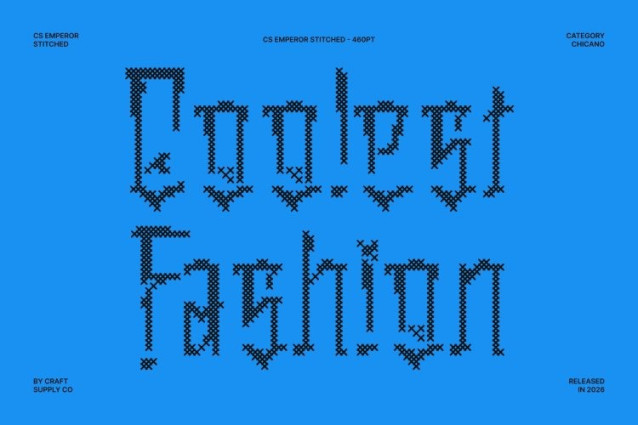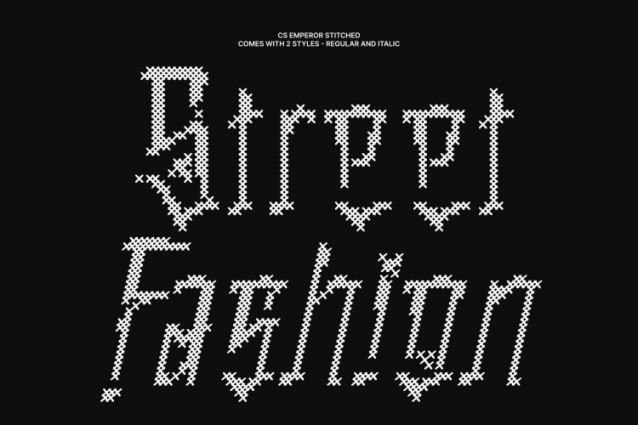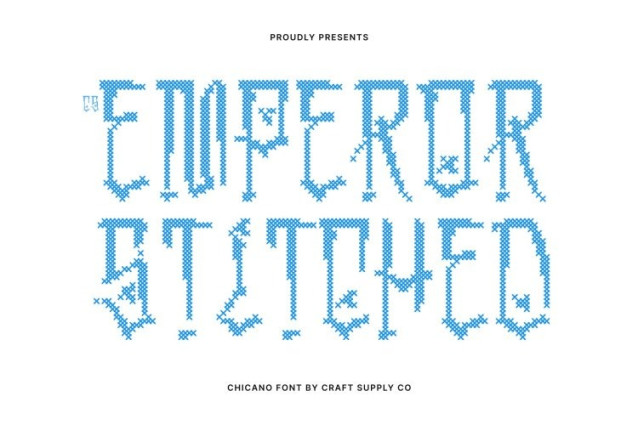
CS Emperor Stitched Font
CS Emperor Stitched Font – This is a bold display font inspired by the expressive beauty of Chicano graffiti, enhanced with a stitched embroidery texture. The cross-thread detailing adds a handcrafted, fabric-like feel that softens the rebellious edge with warmth and personality, creating a distinctive blend of street culture and handmade charm.
Fluid Curves and Sharp Angles
This font features dynamic curves paired with sharp, striking angles, capturing the rhythm and flow of graffiti lettering. The stitched texture adds depth and structure, transforming each letter into a tactile, visually rich form that feels both energetic and crafted.
Celebrating Creativity and Identity
Inspired by urban murals and cultural expression, this font embodies individuality, pride, and artistic freedom. The playful flourishes and expressive shapes make it perfect for projects that want to stand out and communicate bold personality.
Perfect for Bold and Expressive Projects
Ideal for posters, album covers, apparel, branding, packaging, and street-inspired graphics, this font delivers a vibrant urban aesthetic with a warm handmade touch. this font turns every word into a statement of creativity and culture.